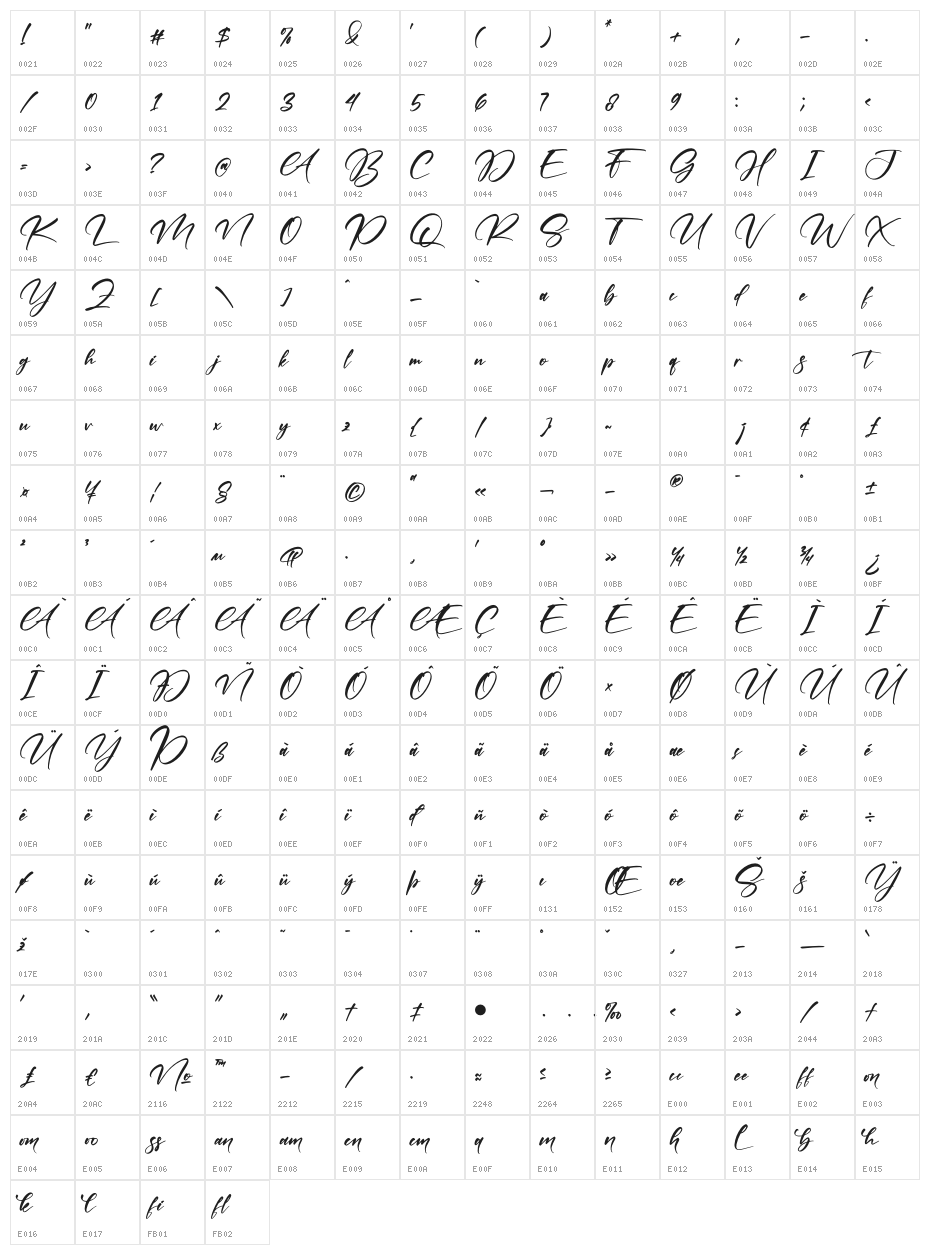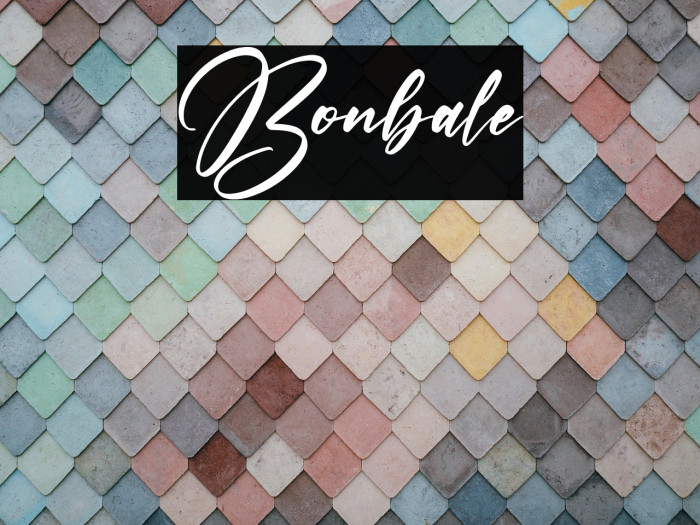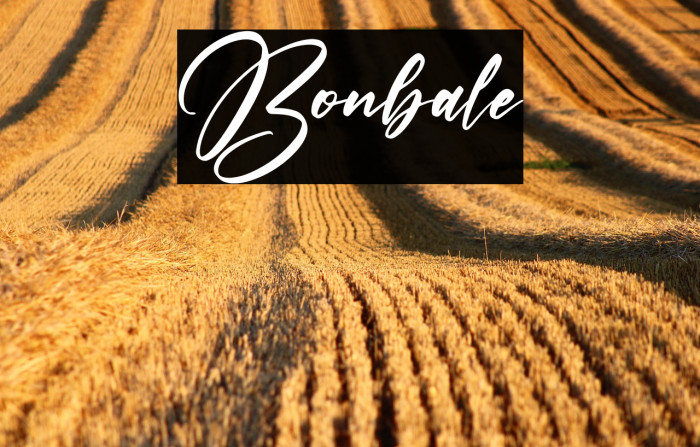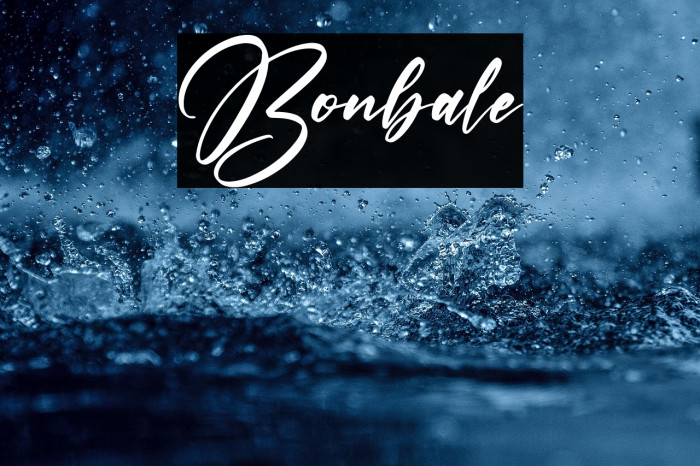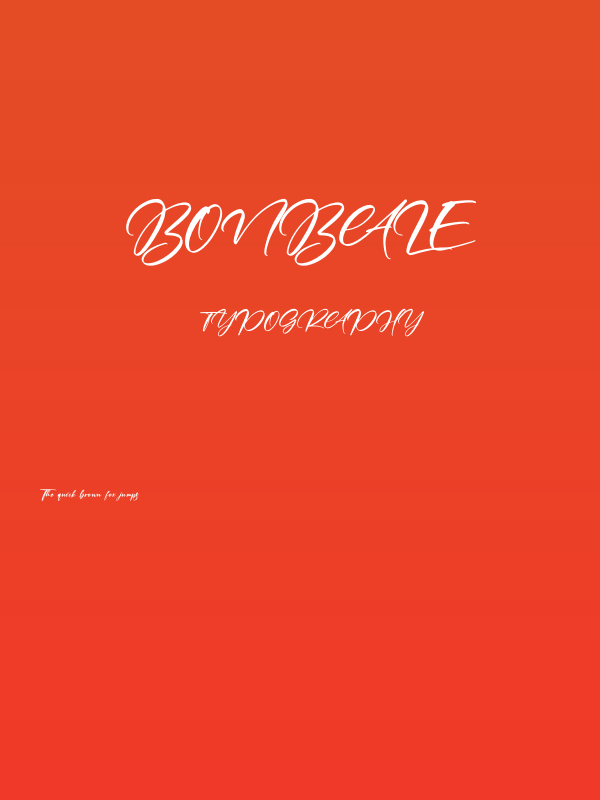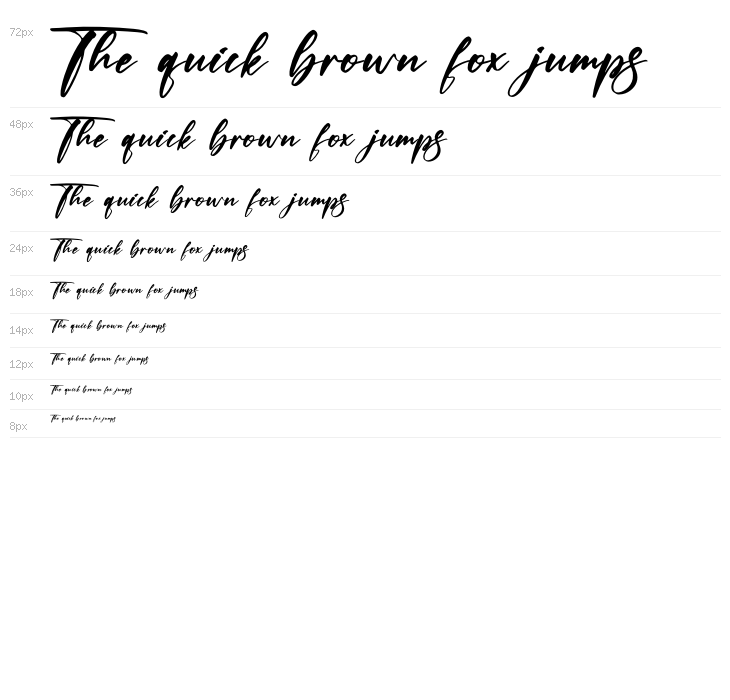
Bonbale Font
| Overall Style | Elegant and decorative. |
| Use Case | Logos, invitations, decorative text. |
| Proposed Projects | Invitations, greeting cards, branding, and logos. |